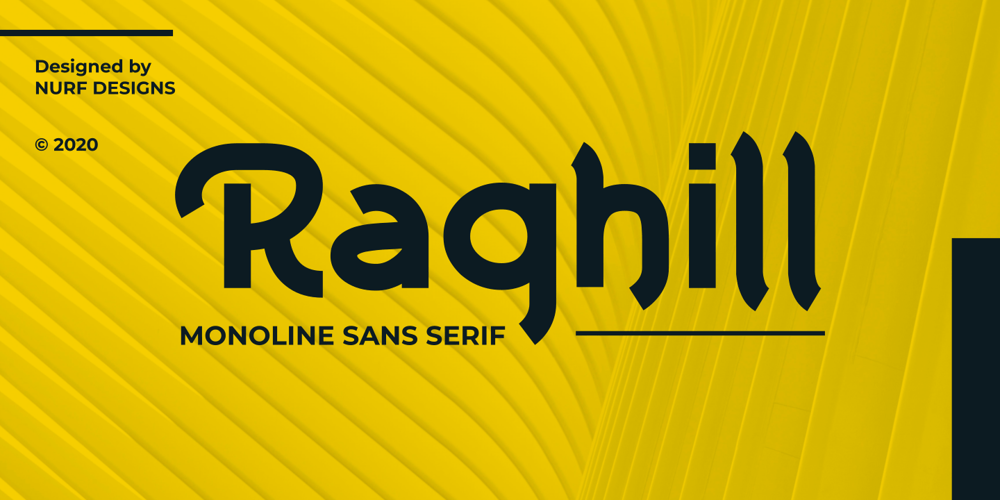
Raghill Font Family was designed by Nur Faidin and published by Nurf Designs. Raghill contains 1 styles and family package options. Raghill is a sans serif font created using monoline. Its very modern and classy appearance makes it very suitable for use in your design needs to make it look better. Masterfully designed to become a true favorite, this font has the potential to bring your creative ideas to the highest level! Works on PC & Mac Simple installations Accessible in the Adobe Illustrator, Adobe Photoshop, Adobe InDesign, even work on Microsoft Word. PUA Encoded Characters – Fully accessible without additional design software.